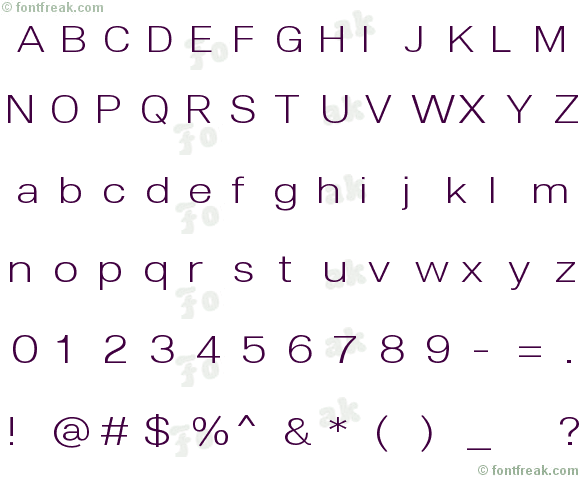
Lunchtype24 Expanded Light
Lunchtype24 Expanded Light, designed by Michel Martinsson, is a contemporary sans-serif font that brings a modern touch to various design projects. With its clean lines and minimalistic aesthetic, this font features a light stroke weight, ensuring readability while exuding elegance. The generous spacing between characters enhances legibility, making it ideal for both digital and print formats. The lack of excessive decorative elements allows the font to maintain a sophisticated simplicity, making it versatile for numerous applications.
This font is particularly suitable for use cases such as restaurant menus, where clarity and style are paramount, and wedding invitations, where a touch of elegance is desired. Its refined appearance also makes it an excellent choice for branding materials, including business cards and logos, as well as website headers, where a modern and professional look can elevate the overall design. Small business owners and graphic designers looking to create impactful visuals will find this font a valuable asset in their toolkit.
The target audience for Lunchtype24 Expanded Light encompasses graphic designers, small business owners, and content creators who seek to enhance their projects with a stylish yet functional typeface. Its freeware license makes it accessible for those on a budget, allowing for creativity without financial constraints.
What sets the Lunchtype24 Expanded Light font apart is its ability to blend simplicity with sophistication. The thoughtful design elements ensure that it stands out in any context, making it a go-to choice for various design needs. For those interested, the Lunchtype24 Expanded Light font free download provides an opportunity to incorporate this distinctive typeface into your projects seamlessly. Whether for personal or professional use, this font will undoubtedly make a lasting impression.